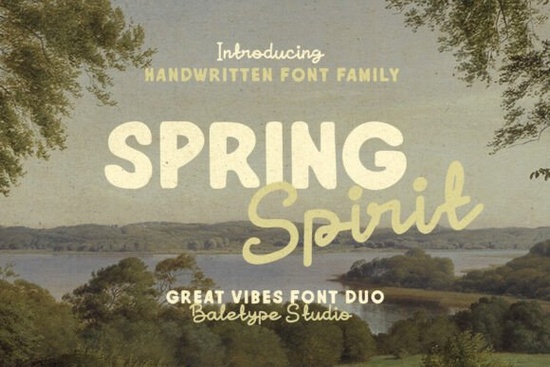
Looking for a Spring Spirit Font review before you buy? This handwritten font duo pairs a bold sans serif with a flowing monoline script, making it a solid choice for anyone who needs that handmade look without spending hours on custom lettering. Whether you're designing logos, quotes, branding materials, or print-on-demand products, the combination of both fonts in one pack gives you a lot of creative flexibility.
What comes in the Spring Spirit Font pack?
When you download this font duo, you get two complementary typefaces:
- Bold sans serif – A clean, sturdy handwritten-style font that works well for headlines, logos, and branding where you need strong readability.
- Monoline script – A smooth, flowing script font with consistent stroke width. This one feels casual and personal, perfect for taglines, quotes, and decorative text.
Using both together lets you create natural-looking font pairings without guessing which fonts work well side by side. If you've ever struggled with pairing fonts, a pre-matched duo like this saves a lot of trial and error.
Who is this font good for?
This font duo works well for a range of creative projects. Here are some of the most common uses:
- Print-on-demand sellers – T-shirt designs, mugs, tote bags, and stickers often call for a handwritten feel. The bold sans serif pairs nicely with the script for layered designs.
- Small business owners – If you're building a brand identity on a budget, this duo can help you create a logo, business cards, and social media graphics with a consistent handwritten style.
- Crafters and hobbyists – Think greeting cards, party invitations, scrapbooking, and DIY printables. The script font adds a personal touch, while the sans serif keeps things readable.
- Designers working on quotes or blog graphics – Mixing a bold font with a script is a classic layout technique for quote images, and this duo makes it easy.
How does Spring Spirit compare to other handwritten font duos?
What makes Spring Spirit stand out is its balance. It's bold enough to be readable at smaller sizes but still has that hand-drawn warmth. If you need something that works across both casual and professional contexts, this is a reliable pick. You can see more options in our full font collection if you want to browse further.
Tips for getting the best results with font duos
Here are a few practical ways to use the Spring Spirit Font duo effectively:
- Use contrast intentionally. Set your main word or phrase in the script font and use the bold sans serif for supporting text. This creates a natural hierarchy.
- Watch your spacing. Handwritten fonts often need manual kerning adjustments, especially when you're pairing two together. Take a few extra minutes to fine-tune letter spacing.
- Keep background simple. Busy backgrounds can make handwritten fonts hard to read. Stick with solid colors or subtle textures.
- Test at different sizes. A font that looks great at 72pt on screen might not hold up at 12pt in print. Always preview at the size you plan to use.
Is Spring Spirit Font worth downloading?
If you regularly work on projects that need a handmade or personal aesthetic, having a reliable font duo on hand is a practical investment. Spring Spirit gives you two matching fonts that cover a wide range of uses from bold headlines to elegant script details. It's not trying to be everything, and that's actually what makes it useful. It does a specific job well: pairing a strong sans serif with a smooth monoline script.